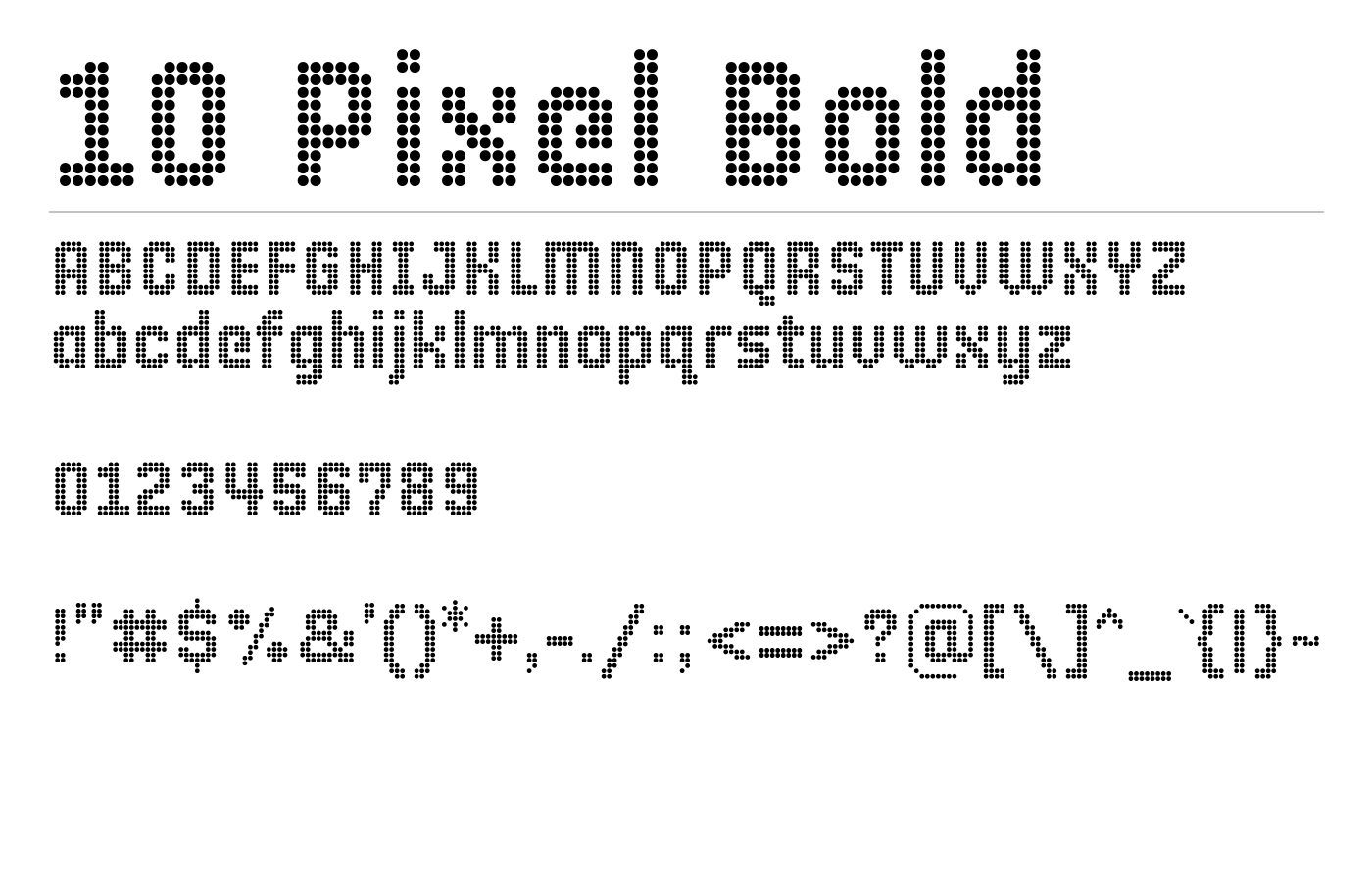
10 Pixel Font is a bold, monospaced pixel-style sans serif typeface characterized by its unique dotted matrix construction, evoking a retro digital or arcade aesthetic. Its consistent weight and geometric structure make it ideal for tech-inspired designs, digital interfaces, gaming projects, and any creative work seeking a nostalgic yet modern pixelated look. This font works especially well in headlines, logos, and display use where a distinctive, vintage computer vibe is desired.
10 Pixel Font
About 10 Pixel Font
| Font family | 10 Pixel Font |
| Designer | jaikishan Patel |